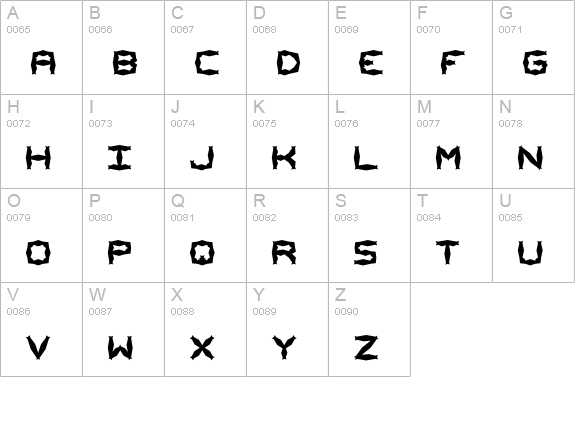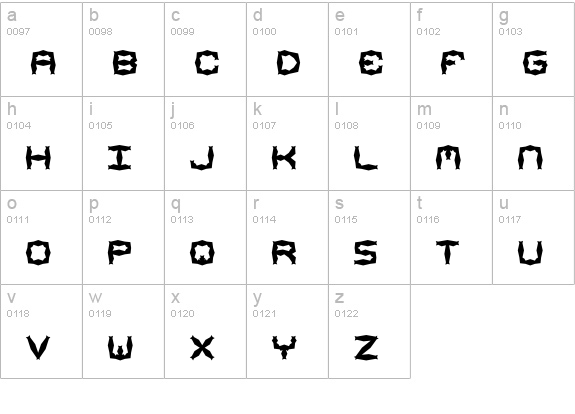
Mishmash ALT1 BRK Font Details
Mishmash ALT1 BRK font is a unique and playful display typeface that combines different styles and elements to create a truly one-of-a-kind look. With its quirky design and bold letterforms, this font is perfect for catching the eye and adding a touch of fun to your projects. What sets Mishmash ALT1 BRK font apart is its versatility - it can be used for a wide range of design projects, from posters and flyers to social media graphics and branding materials. The irregular shapes and varying line weights give this font a dynamic and energetic feel that will make your text stand out. Best of all, Mishmash ALT1 BRK font is completely free to download at FontsMarket.com. So whether you're a designer looking to add some personality to your work or just someone who loves experimenting with different fonts, be sure to check out Mishmash ALT1 BRK for a fresh and exciting typographic experience.